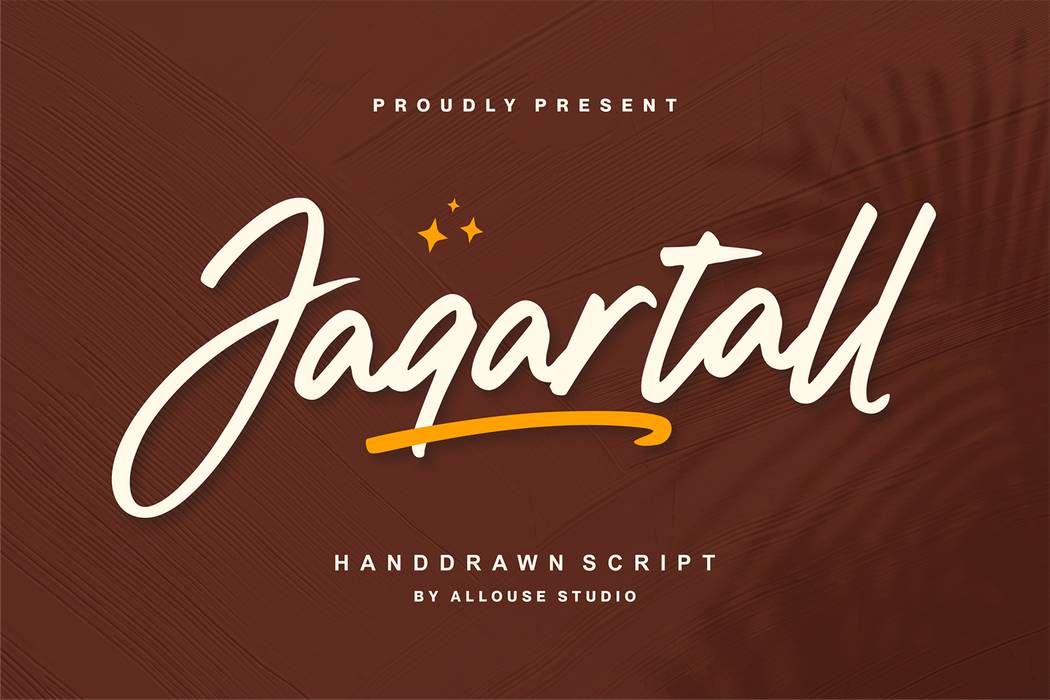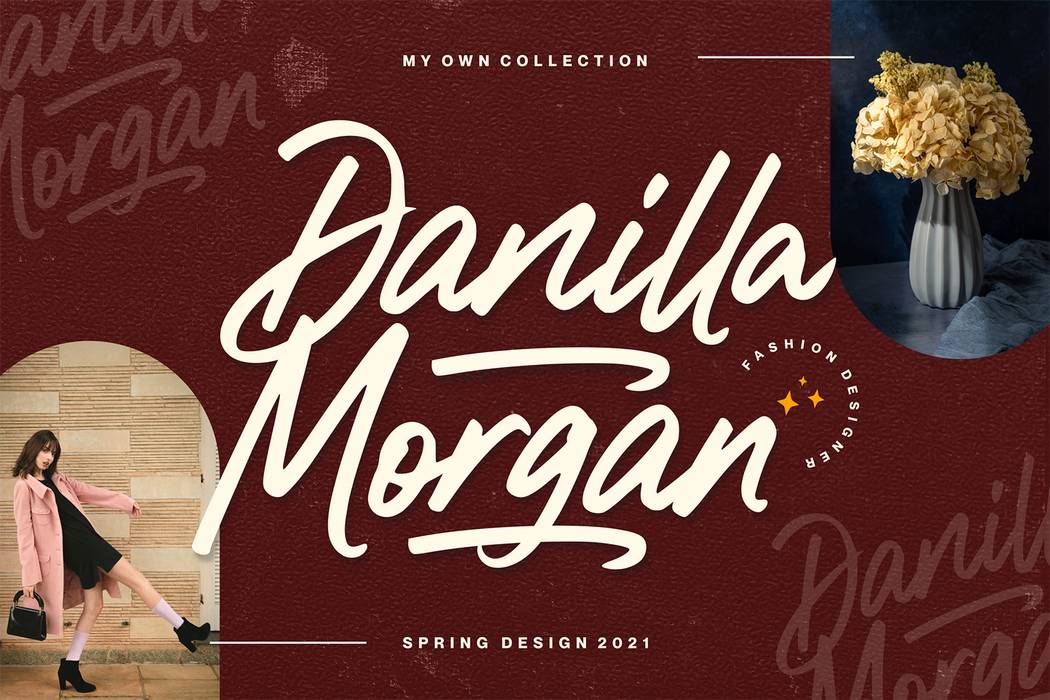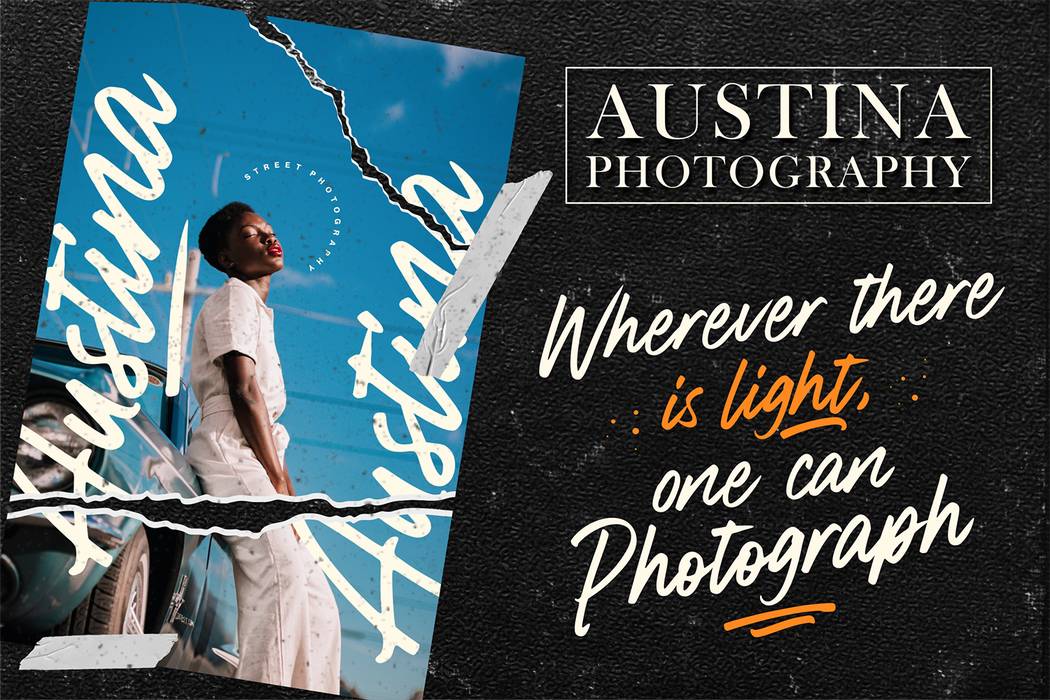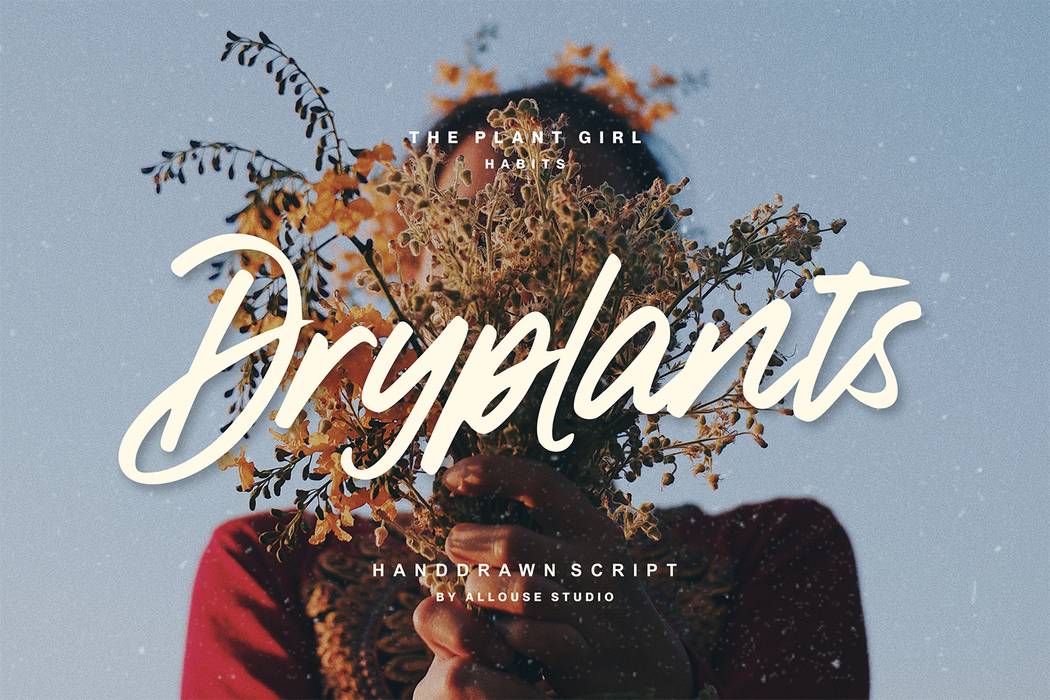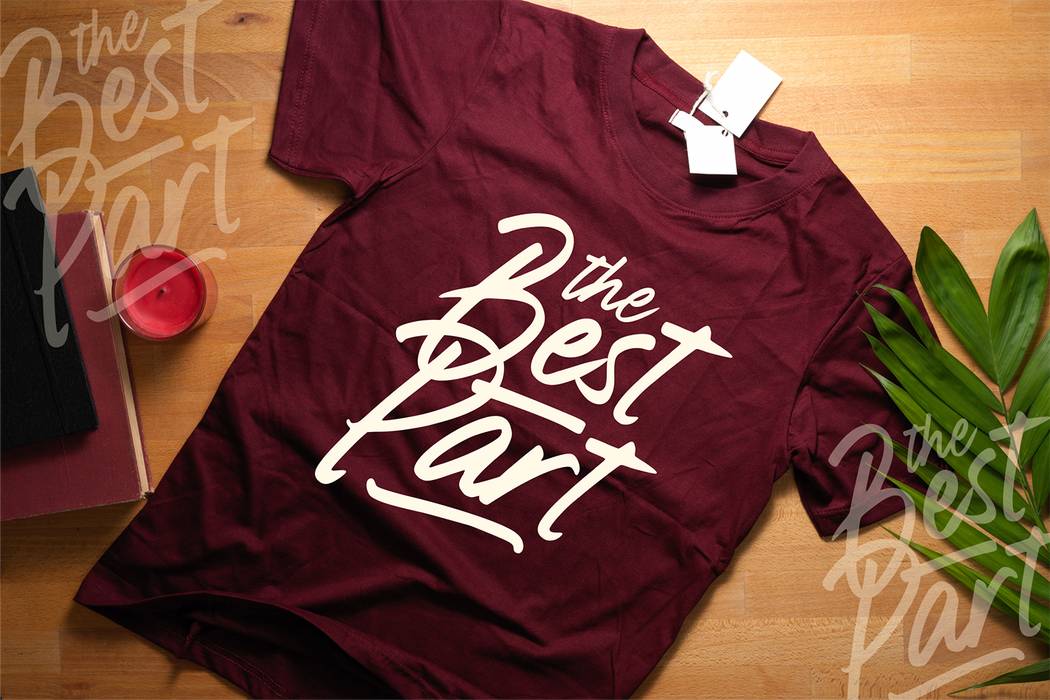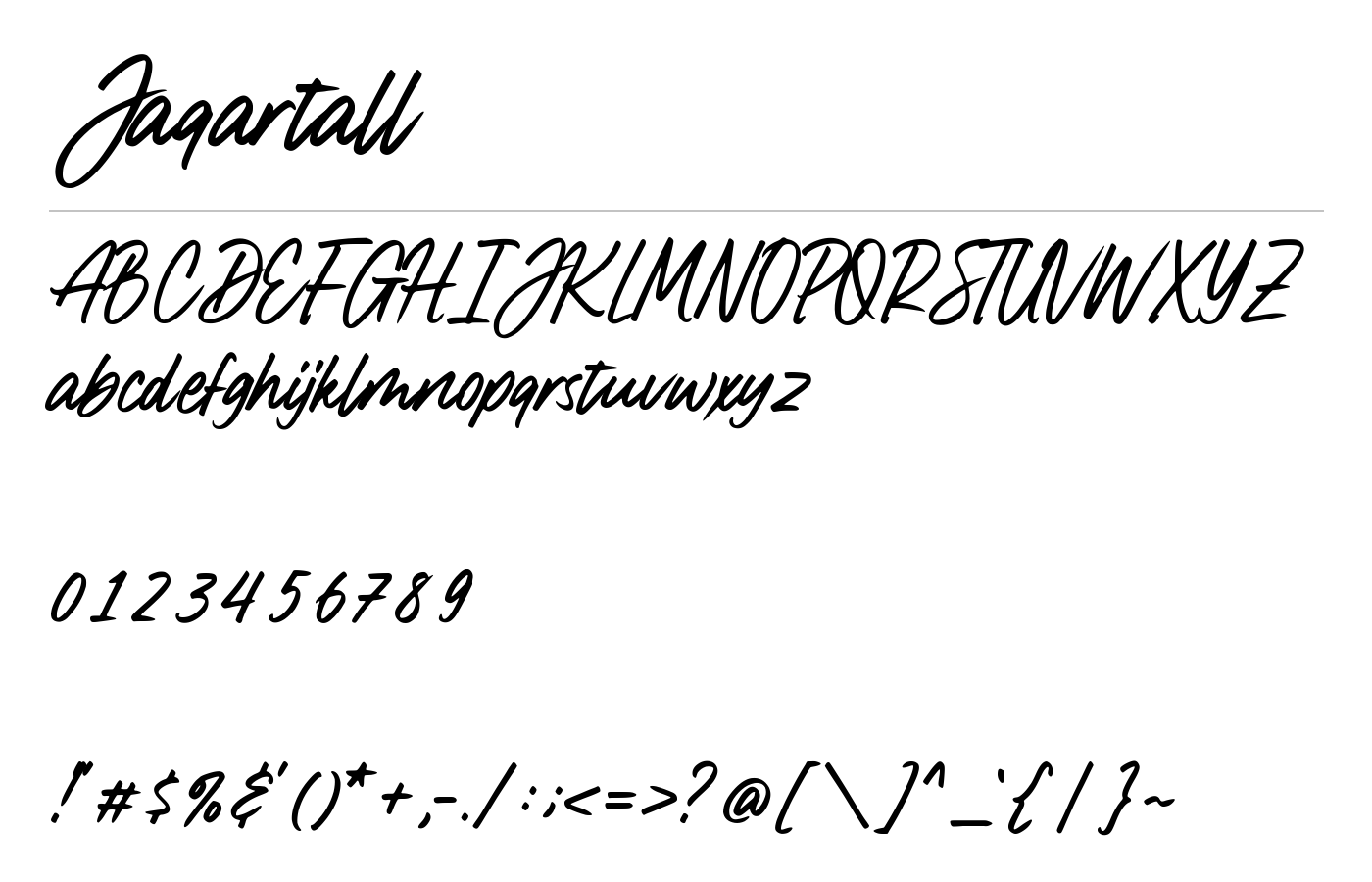
Jaqartall is a lively and elegant script font with a smooth, handwritten style that combines modern flair with a casual, personal touch. Its slender strokes and slightly condensed letterforms create a dynamic yet readable texture, making it ideal for brands or projects that want to convey creativity and warmth. This font works beautifully for logos, invitations, and headlines where a stylish, approachable personality is desired.
Jaqartall Font